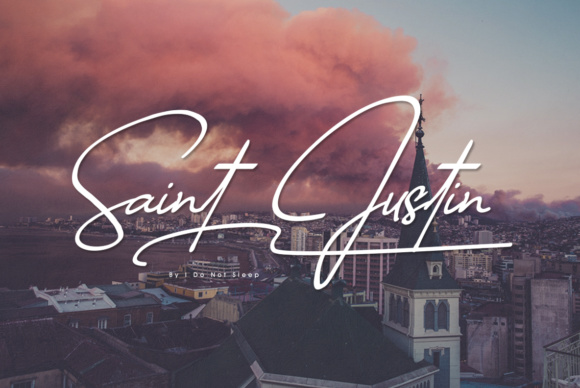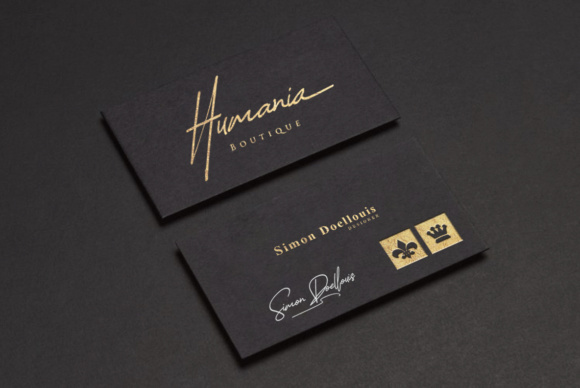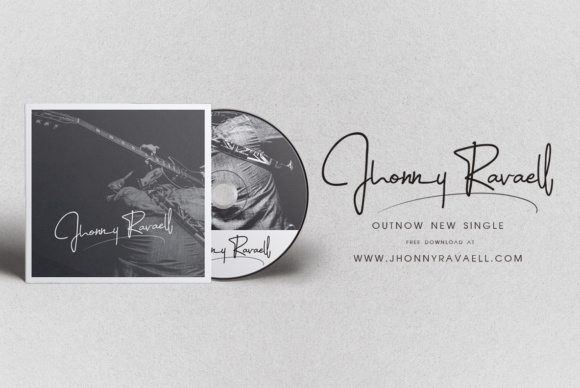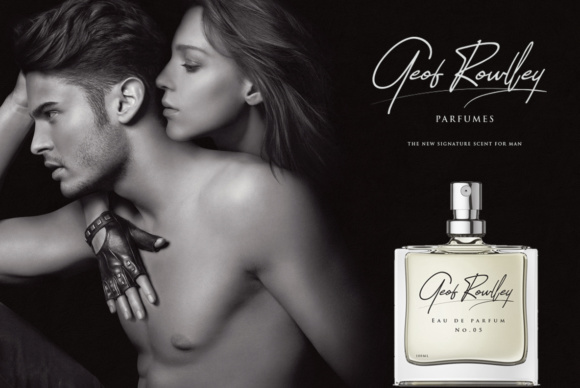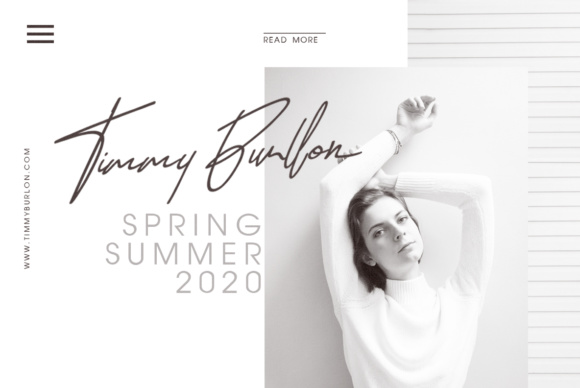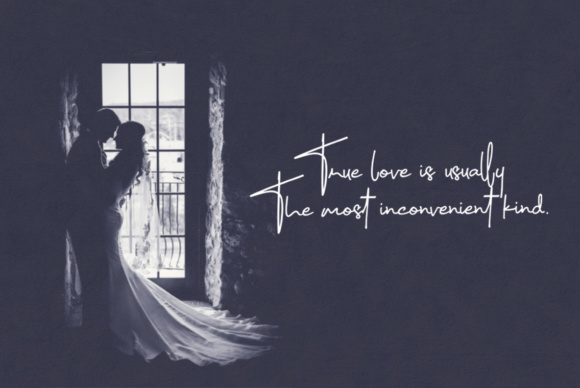
Saint Justin Font
About Saint Justin Font
Saint Justin is a signature font with a touch of elegant handwriting. It has a classy and modern look, which makes it perfect for logos, watermarks, brand logos, weddings, magazines, signature and much more! Saint Justin can be customized to your own needs and features a full-featured regular, italic and swash version.